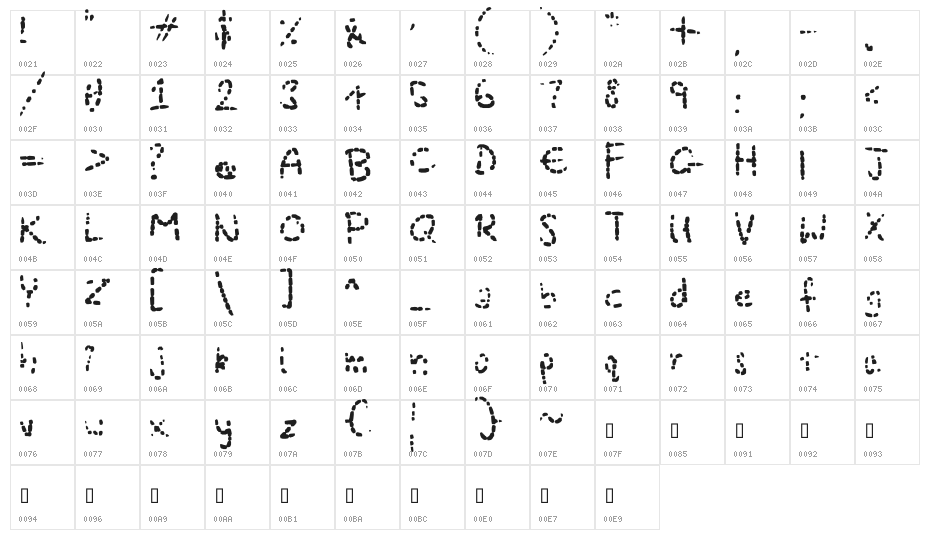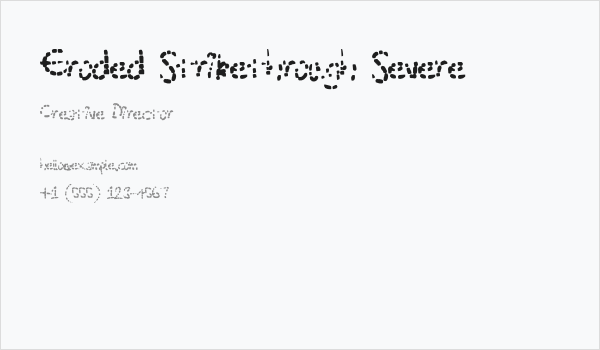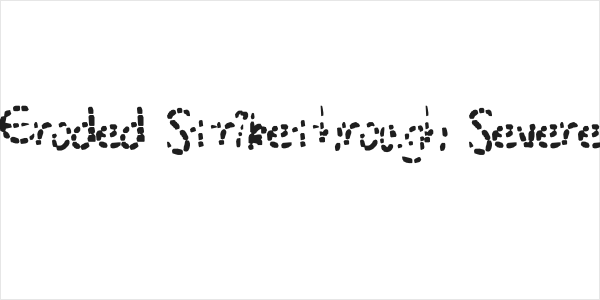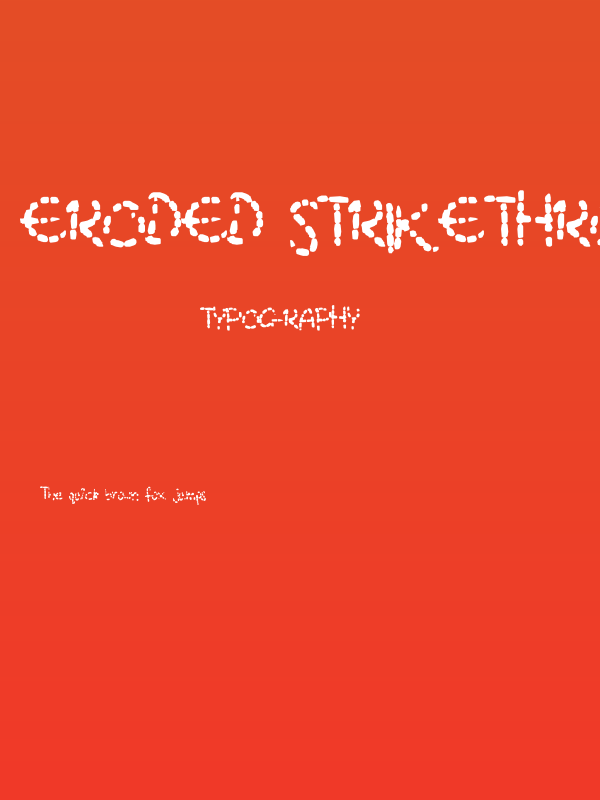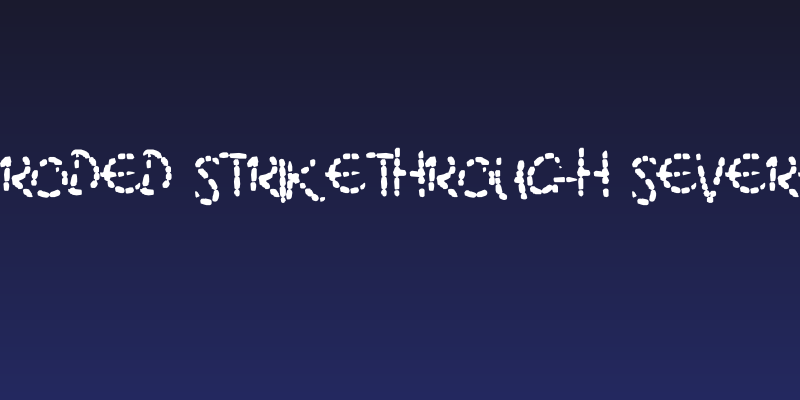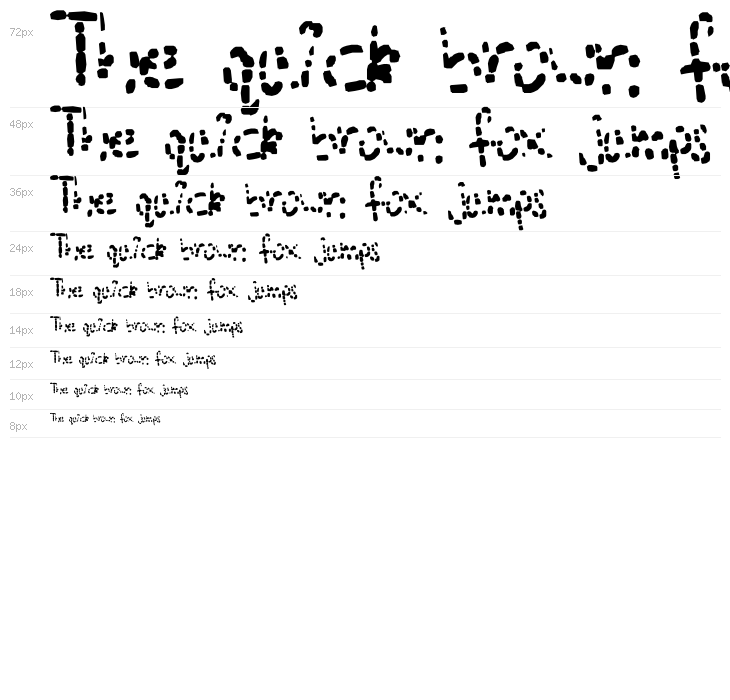
Eroded Strikethrough Severe Font
Eroded Strikethrough Severe Description
This font features a unique eroded and strikethrough style, giving it a distressed and weathered appearance. The characters are composed of fragmented strokes, creating a sense of decay and imperfection. Despite its rough texture, the font maintains legibility, with each letterform clearly distinguishable. The uppercase and lowercase letters, along with numbers and special characters, all share this distinctive eroded look, making it suitable for projects that require a gritty, raw aesthetic. The font's irregularity and bold presence make it ideal for artistic and creative designs.
| Proposed Projects | Ideal for album covers, posters, street art designs, and any project needing a raw, edgy look. |